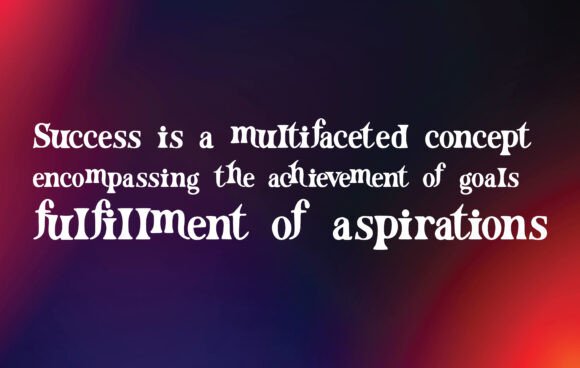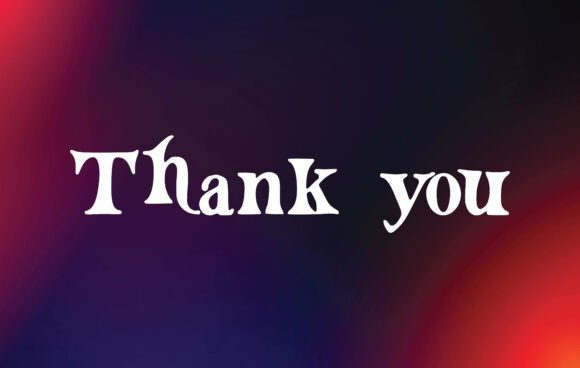
The Perfect Blend of Art and Design: Unleashing the Power of Carter Font
Have you ever sat in front of your computer, staring at a blank page, waiting for the perfect idea to strike? You know, that moment when the creative juices start flowing and you’re ready to bring your vision to life? For designers, this is a moment we all cherish. It’s the spark that ignites the flame of creativity, and with the right tools, we can take our ideas to new heights.
That’s where the Carter Font comes in – a beautiful, handwritten font that adds a touch of elegance and sophistication to any design. Whether you’re creating eye-catching logos, branding, or quotes, this font is the perfect choice to make your ideas stand out. With its unique charm and character, the Carter Font is a valuable asset for any designer looking to elevate their work to the next level.
Carter Font Key Features
- Font Family: Carter Font is a serif font, designed for use in body text and titles.
- Size: Carter Font is available in 8 font sizes, ranging from 8pt to 72pt.
- Resolution: Designed for use at high resolutions, ideal for print and digital media with a minimum resolution of 300 DPI.
- Unique Characteristics: Carter Font features a unique blend of traditional and modern design elements, with a focus on legibility and readability.
- Font Style: Available in Regular, Italic, Bold, and Bold Italic styles.
Carter Font Review
At first glance, the Carter Font seems to offer a classic and elegant aesthetic, reminiscent of traditional American serif fonts. ✨ I appreciate how the font’s subtle flair and rounded edges evoke a sense of warmth and approachability.
Upon closer inspection, I find that the Carter Font performs well in larger font sizes and headings, where its distinctive style can be effectively showcased. ✨ However, I notice that the font becomes somewhat legible in smaller text sizes, which might be a concern for readers who prefer a clear and concise reading experience.
- ⚠️ The Carter Font can be challenging to read in smaller text sizes, particularly for body text.
- ⚠️ The font’s design may not be suitable for situations where clarity and precision are paramount, such as in technical or academic content.
Overall, the Carter Font is a stylish choice for designers seeking a classic, nostalgic aesthetic. However, its limitations in smaller text sizes and readability may make it less suitable for certain applications. As with any font selection, it’s essential to consider the specific needs of your project and audience when deciding whether the Carter Font is the right fit.
The Carter Font is a versatile font suitable for a variety of designs, including:
- Editorial and publishing
For best results, use the Carter Font in conjunction with clean, modern design elements and plenty of white space.
Alternatives to Carter Font for Designers
Bodoni Font
Bodoni is an elegant and refined serif font, ideal for use in high-end publications, luxury brands, and formal invitations. It features a classic and sophisticated design, with sharp lines and a sense of grandeur. Bodoni is similar to Carter Font in its formal and classic feel, but it has a more dramatic and opulent quality.
Playfair Display is an elegant and luxurious serif font, perfect for use in high-end branding, advertising, and editorial design. It features a classic and sophisticated design, with intricate details and a sense of opulence. Playfair Display is similar to Carter Font in its elegant and refined feel, but it has a more elaborate and ornate quality.
Didot Font
Didot is a classic and sophisticated serif font, ideal for use in high-end publications, luxury brands, and formal invitations. It features a refined and elegant design, with sharp lines and a sense of grandeur. Didot is similar to Carter Font in its formal and classic feel, but it has a more subtle and understated quality.
Adams Font
Adams is a classic and elegant serif font, perfect for use in high-end branding, advertising, and editorial design. It features a refined and sophisticated design, with sharp lines and a sense of grandeur. Adams is similar to Carter Font in its elegant and refined feel, but it has a more traditional and timeless quality.